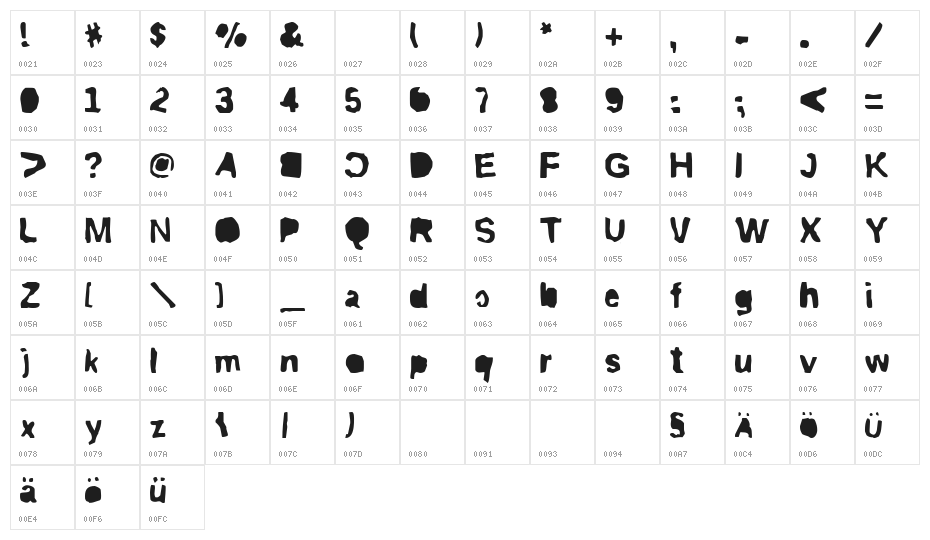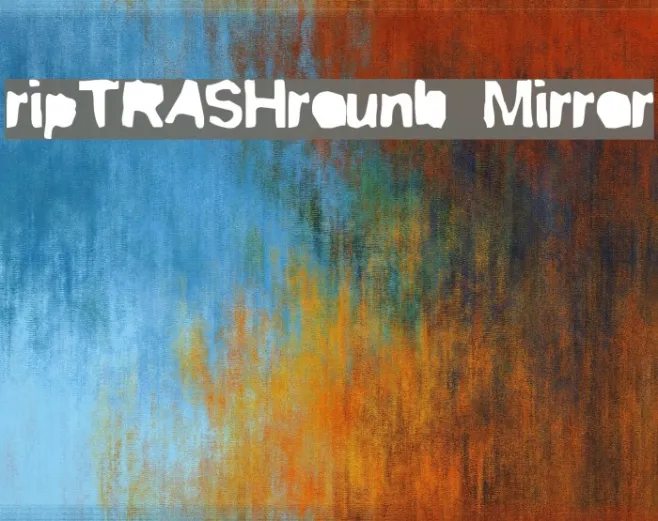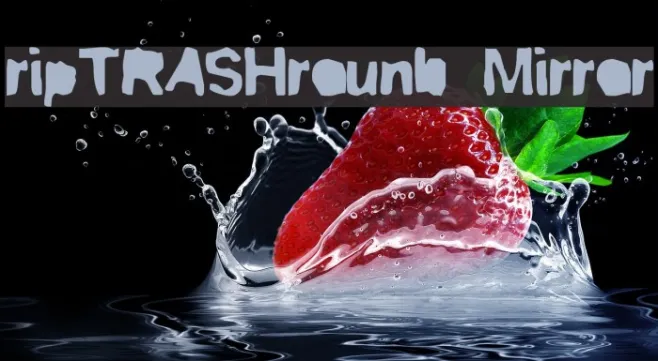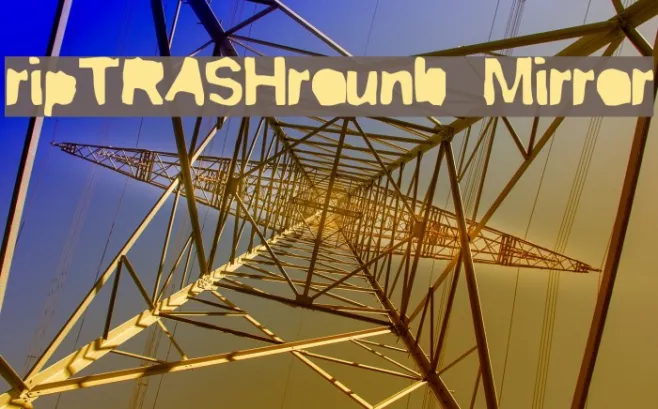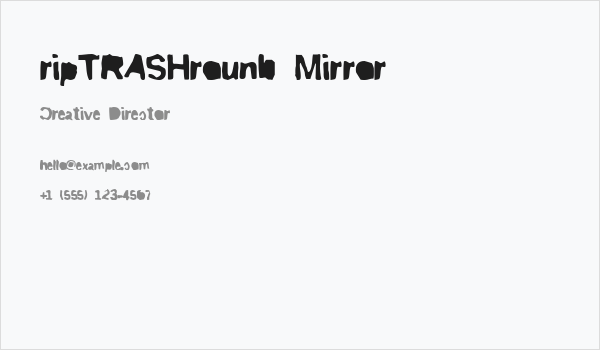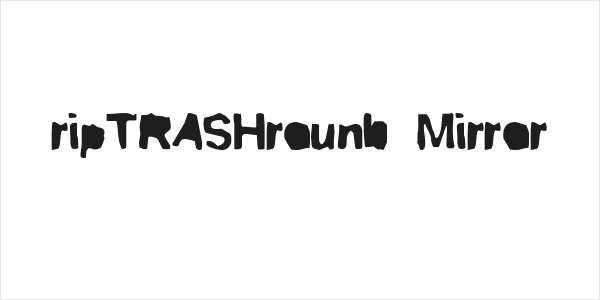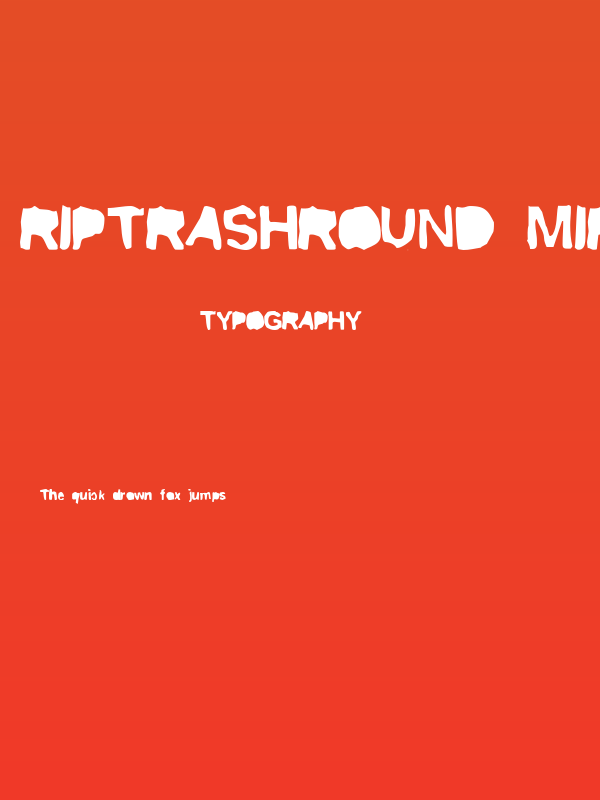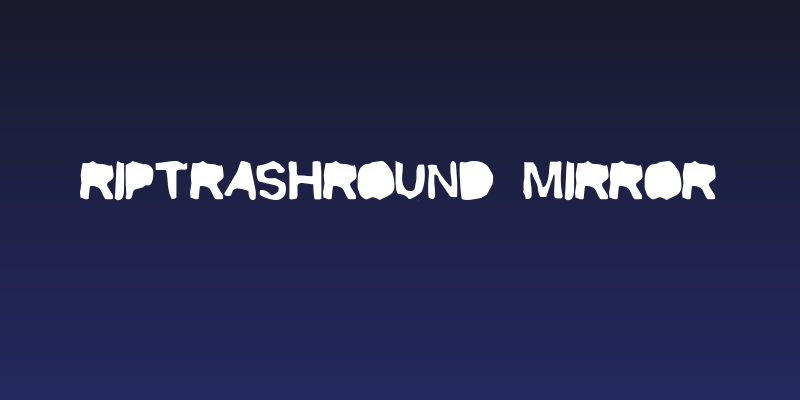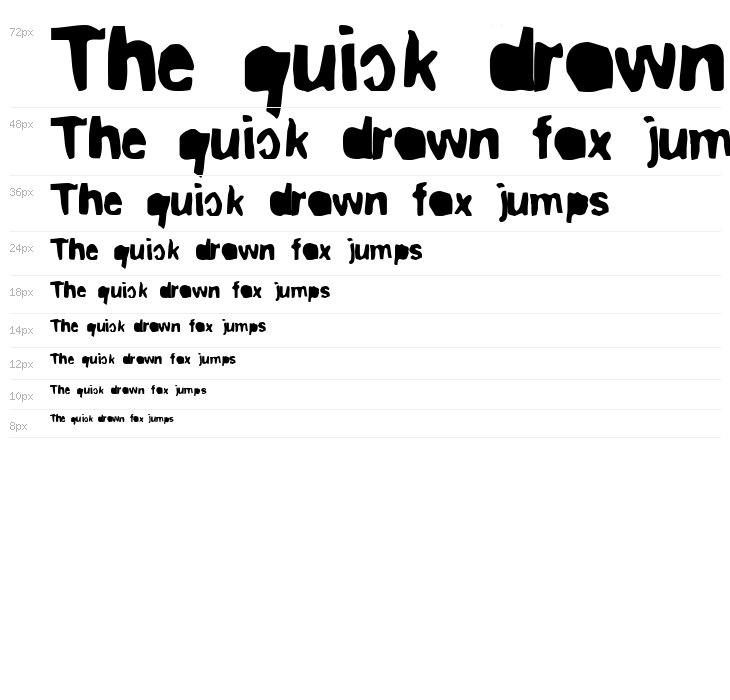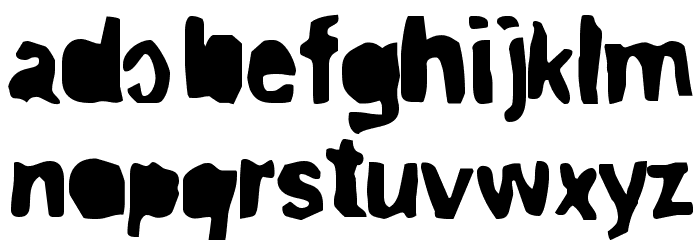
ripTRASHround Mirror Font
ripTRASHround Mirror Description
This font features a bold and playful design with irregular, organic shapes that give it a unique and quirky appearance. The characters are thick and uneven, resembling hand-cut paper or a collage, which adds a sense of spontaneity and creativity. The uppercase and lowercase letters maintain a consistent style, with rounded edges and varying widths that create a dynamic visual rhythm. Numbers and special characters follow the same design principles, ensuring a cohesive look across all glyphs. This font's distinct style makes it stand out, offering a fresh and artistic vibe.
| Proposed Projects | Ideal for creative projects such as posters, album covers, children's books, and branding for artistic ventures. |